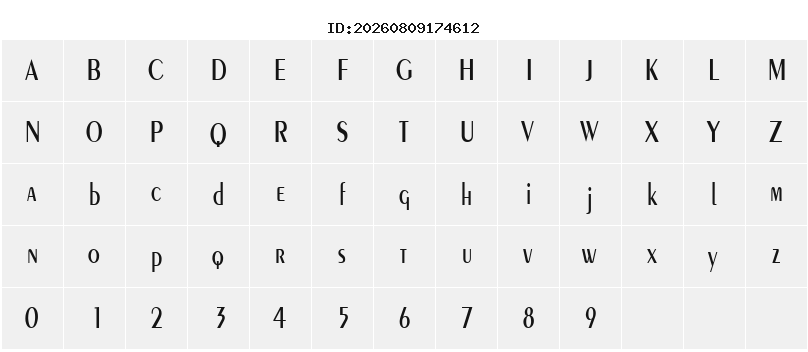
About Pare Condensed.ttf
Pare Condensed.ttf is a modern, elegant sans-serif font designed for ultimate readability and visual harmony. Perfect for branding, headlines, web design, and print materials.